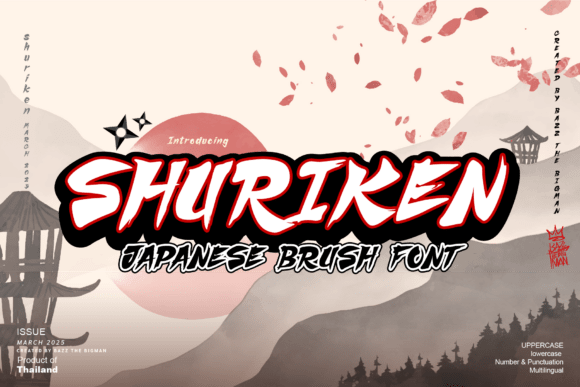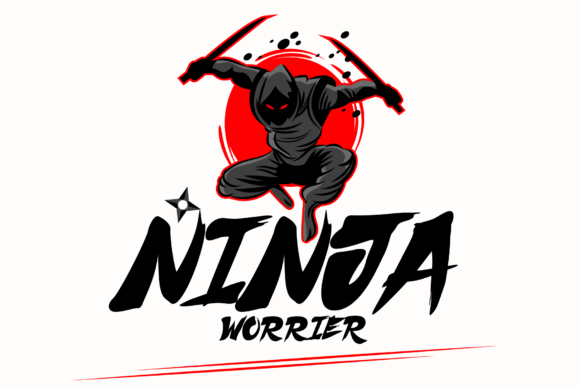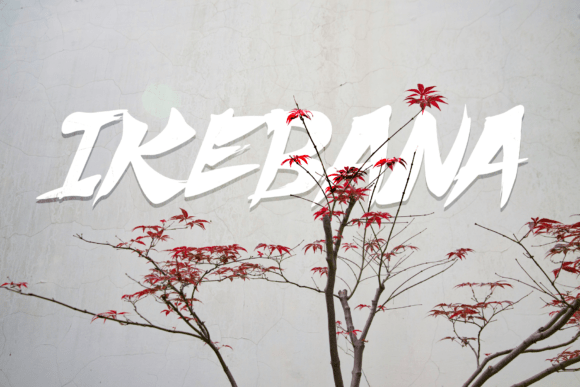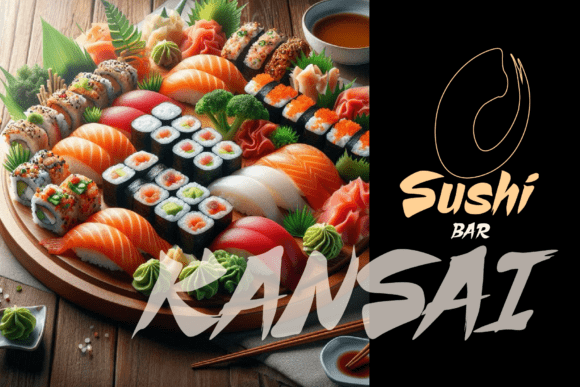
Shuriken Font
Experience the mesmerizing allure of Shuriken, an unparalleled display font, echoing the exquisite artistry of Japan. Its striking features make it a commanding presence on food menus, captivating poster flyers, or alluring prints. With Shuriken, the canvas of creativity is broad and limitless, awaiting your exploration and inventiveness. Discover the massive potential this font carries to transform any design into a masterpiece.